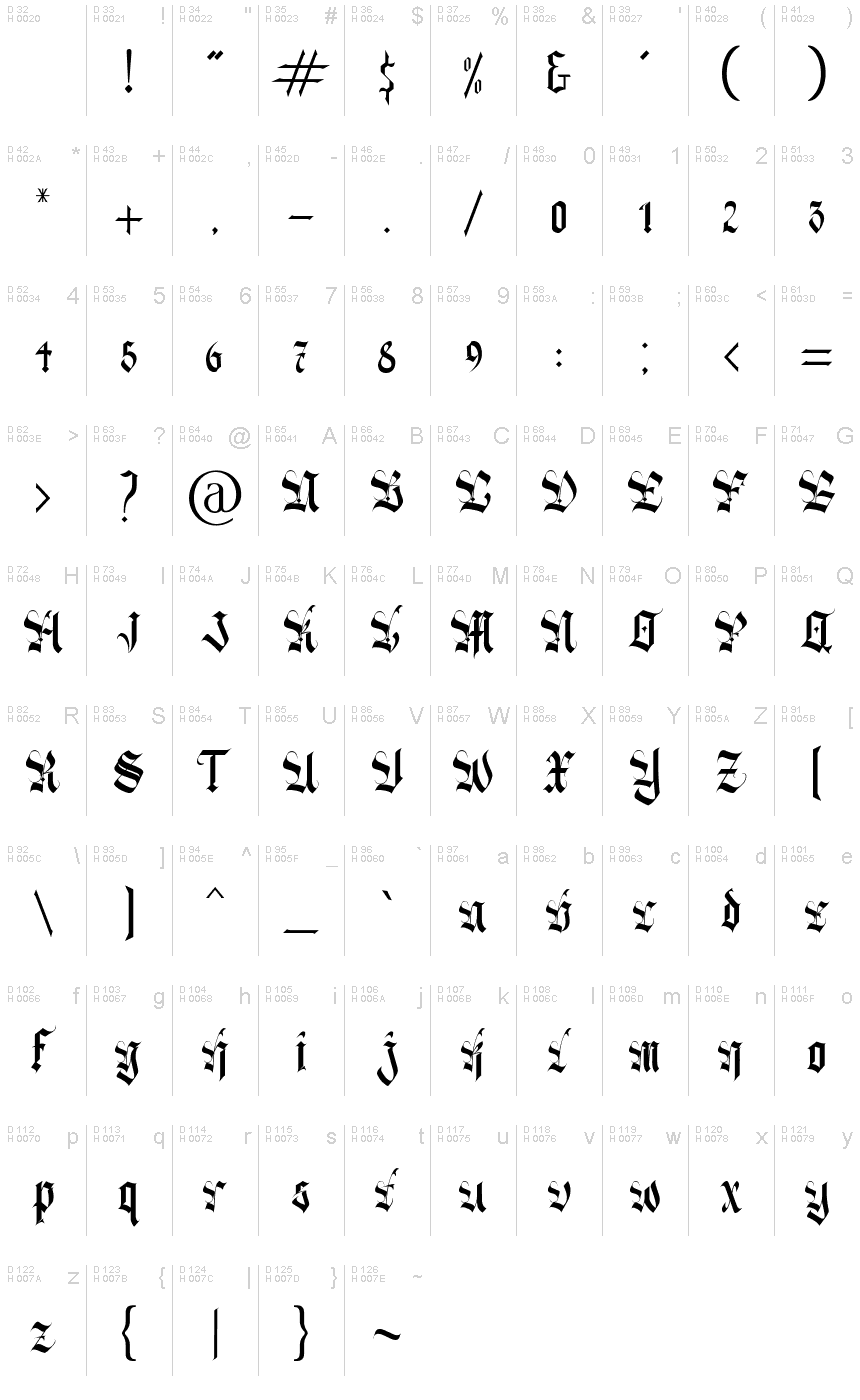
Black Romans
Kong Font's Black Romans is a modern gothic font. Perfect for giving your designs an elegant yet edgy feel, this font is ideal for logos, posters, and website headers.